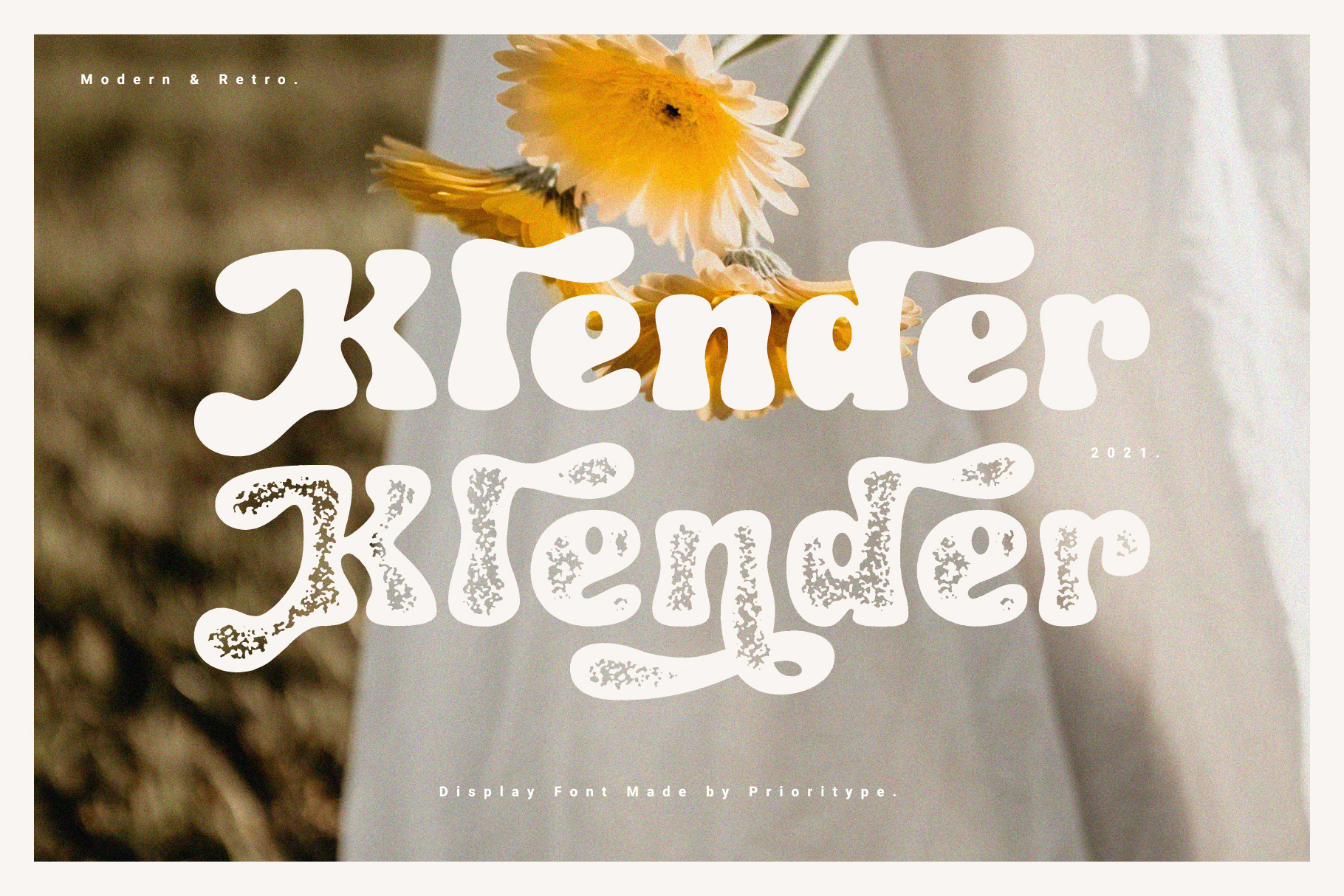
Klender - Modern & Retro Font
Introducing
Klender: The modern and retro styled fonts have some additional alternative characters that make them beautiful. With these 2 styles you can apply them to your branding designs, business cards, posters, social media posts, merchandise and more.